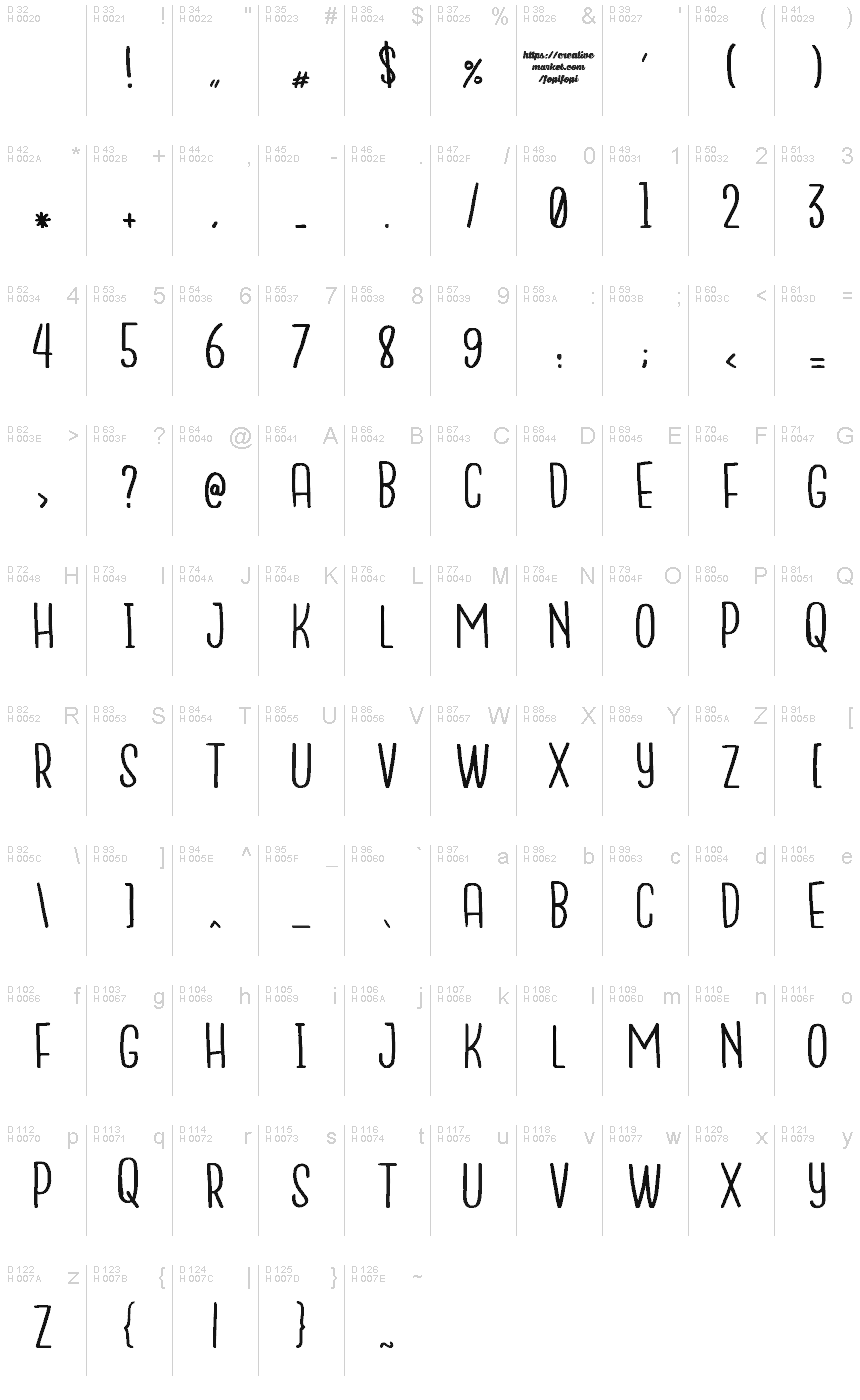
NANDA
Nanda is a captivating handwritten font, crafted with a delicate, light touch. Its condensed width lends a charming, intimate feel, while the organic, expressive strokes evoke a sense of handcrafted authenticity. The playful, yet refined aesthetics of Nanda make it an ideal choice for a wide range of design applications, from editorial layouts and packaging to branding and social media content. Its versatility shines through in its ability to convey a warm, personal tone while maintaining a polished, visually striking appearance.
This font's unique character seamlessly blends traditional handwritten styles with a modern, refined sensibility, making it a compelling option for designers seeking to infuse their work with a touch of artisanal charm. Nanda's captivating form and adaptable nature ensure that it will stand out, whether used in headlines, body text, or decorative elements.